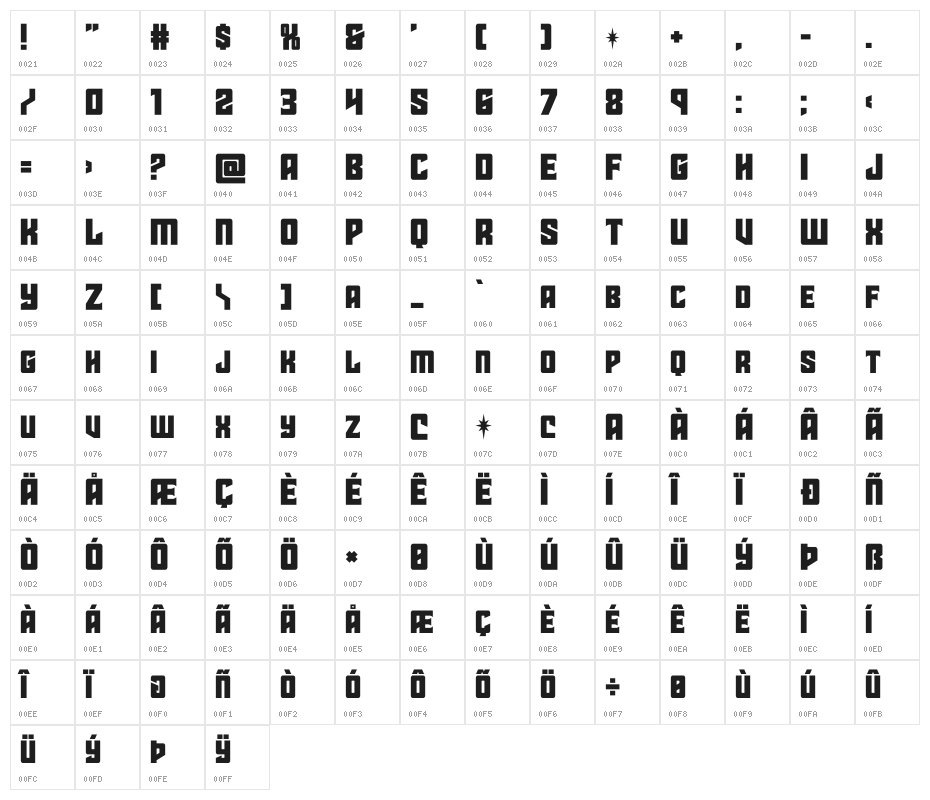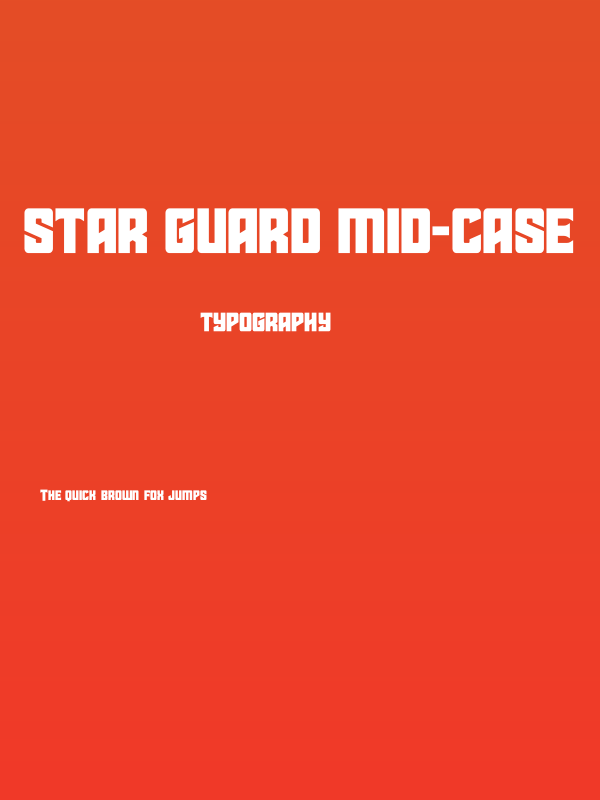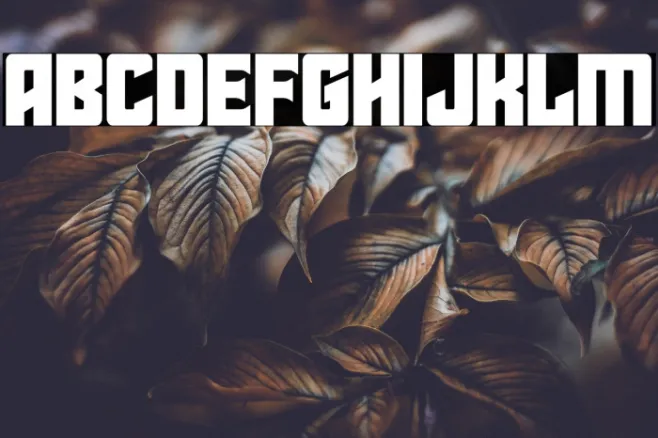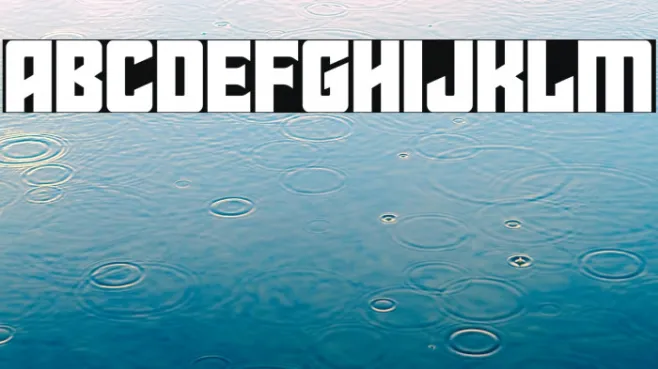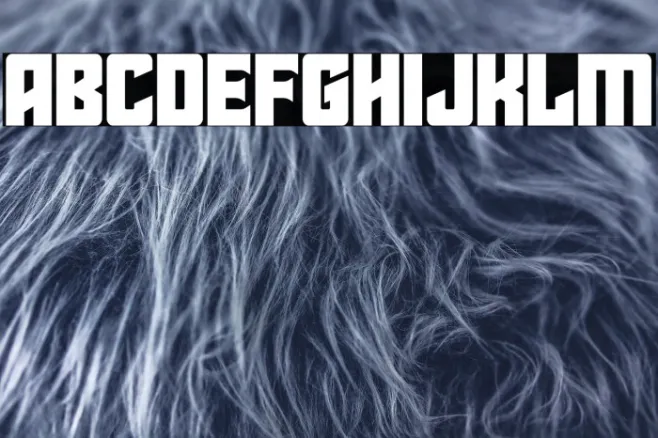
Star Guard Mid-Case Font
Star Guard Mid-Case Description
This font features a bold, geometric style with strong, angular lines and a futuristic aesthetic. The uppercase letters are blocky and imposing, while the lowercase letters maintain the same boldness with slightly more rounded edges. Numbers and special characters follow the same design principles, ensuring consistency across all glyphs. The font's design is reminiscent of science fiction themes, with a modern and edgy look that stands out. Its high contrast and thick strokes make it highly legible and impactful, suitable for attention-grabbing designs.
| Overall Style | Modern, Futuristic |
| Proposed Projects | Ideal for sci-fi movie posters, video game titles, branding for tech companies, and any project needing a modern, bold look. |